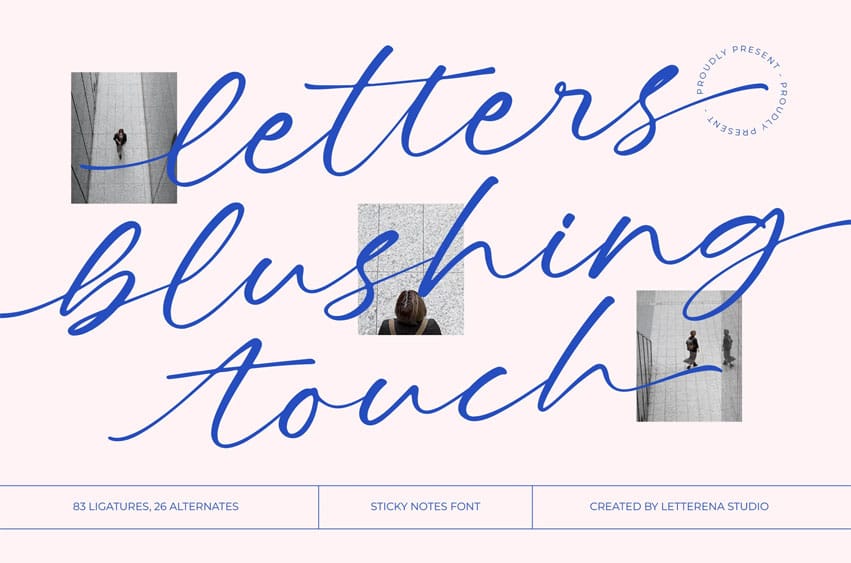
Letters Blushing Font Touch is a delicate handwritten script inspired by natural pen strokes and soft personal notes. Its elegant flow, long swashes, and smooth curves create an intimate handwritten feel perfect for branding, stationery, quotes, lifestyle visuals, and editorial layouts.
With 83 ligatures and 26 alternates, this font gives designers flexibility to create authentic, expressive lettering with seamless connections and refined charm.